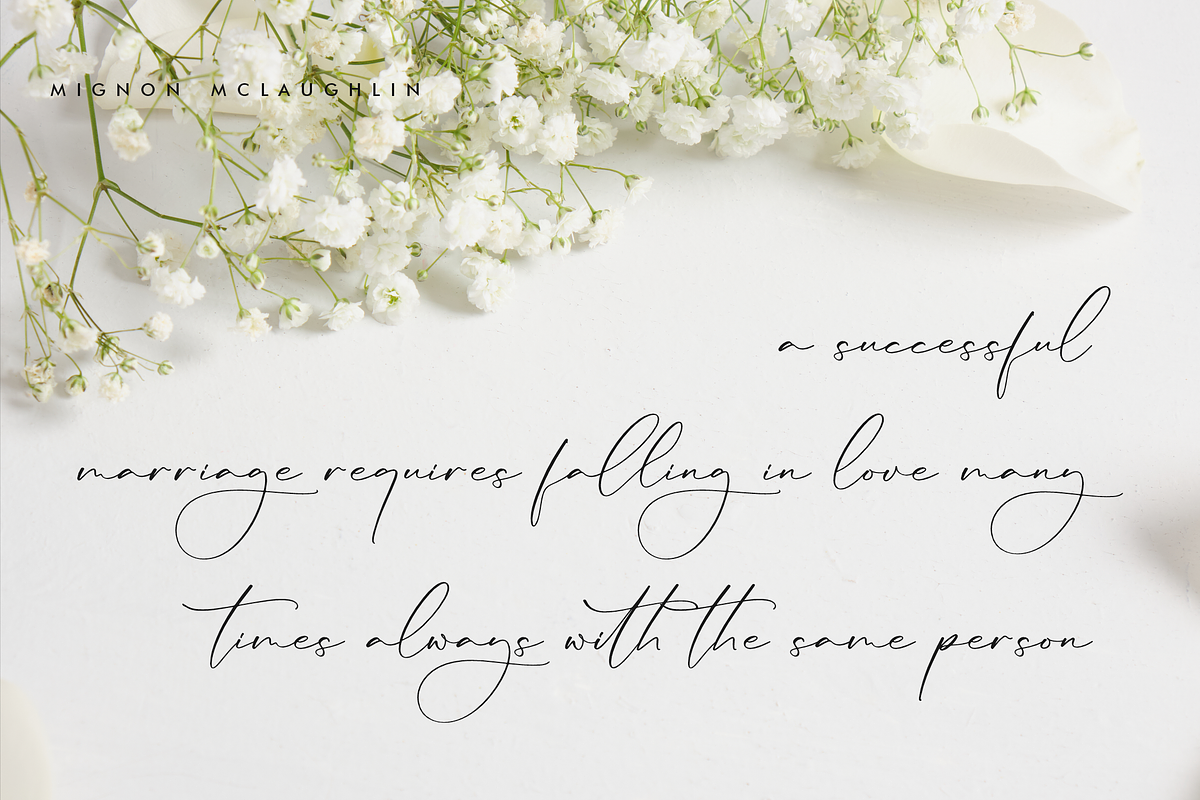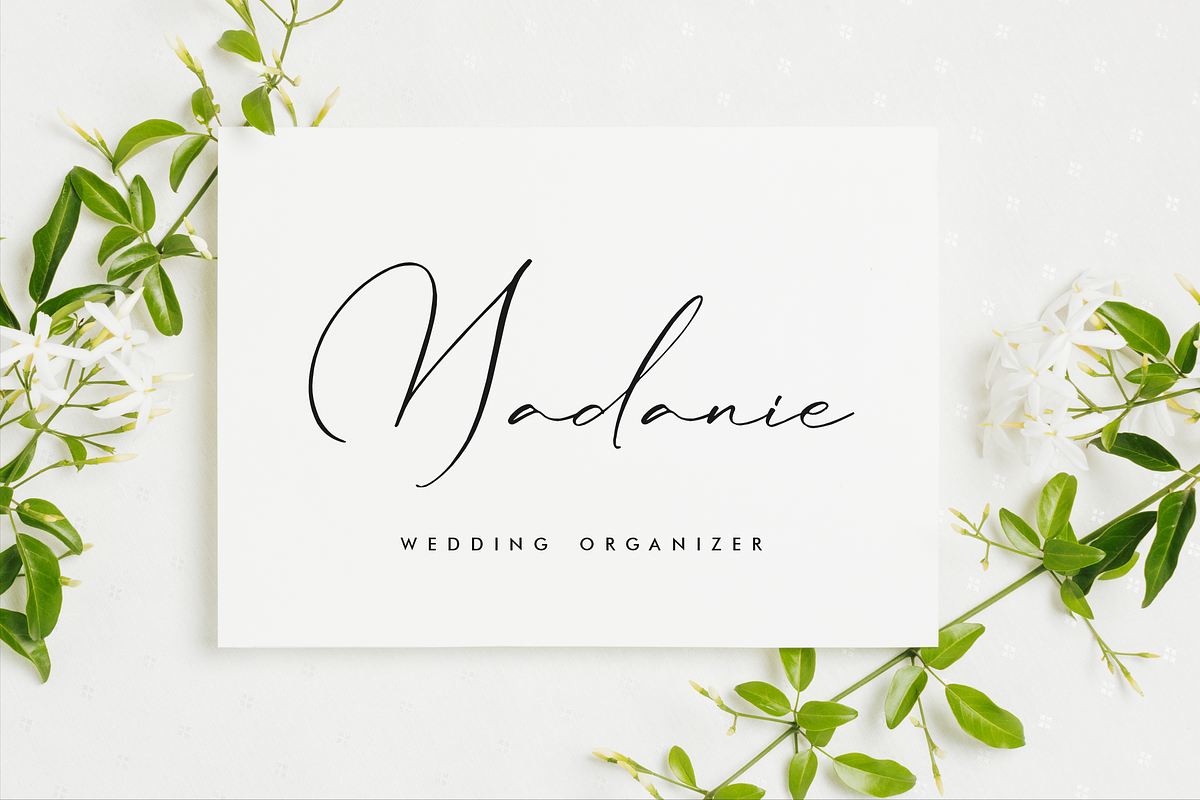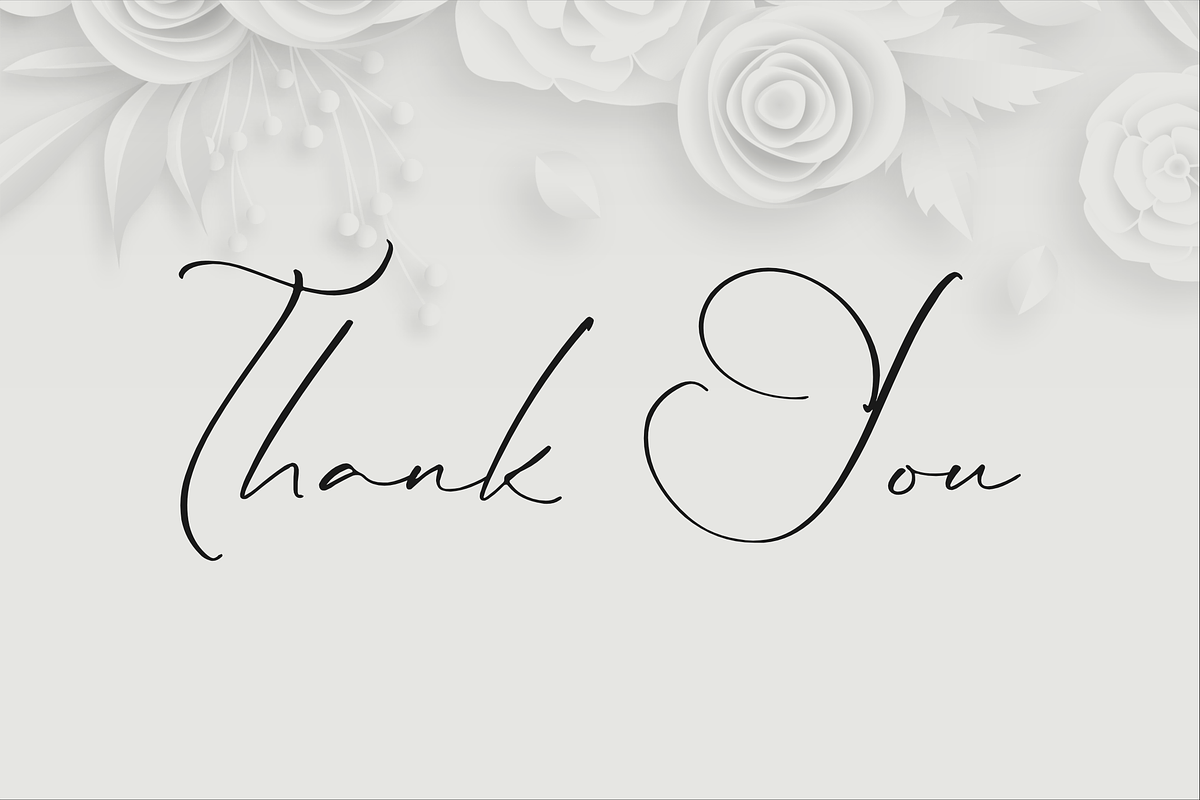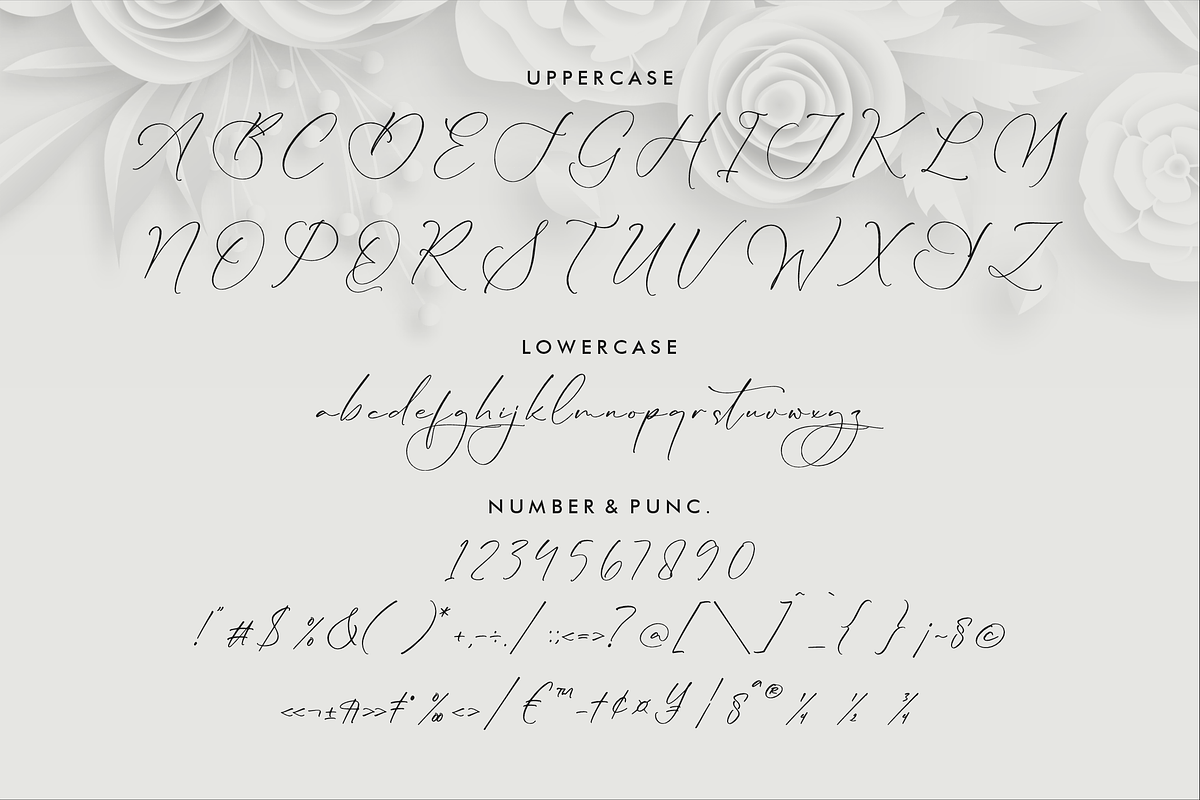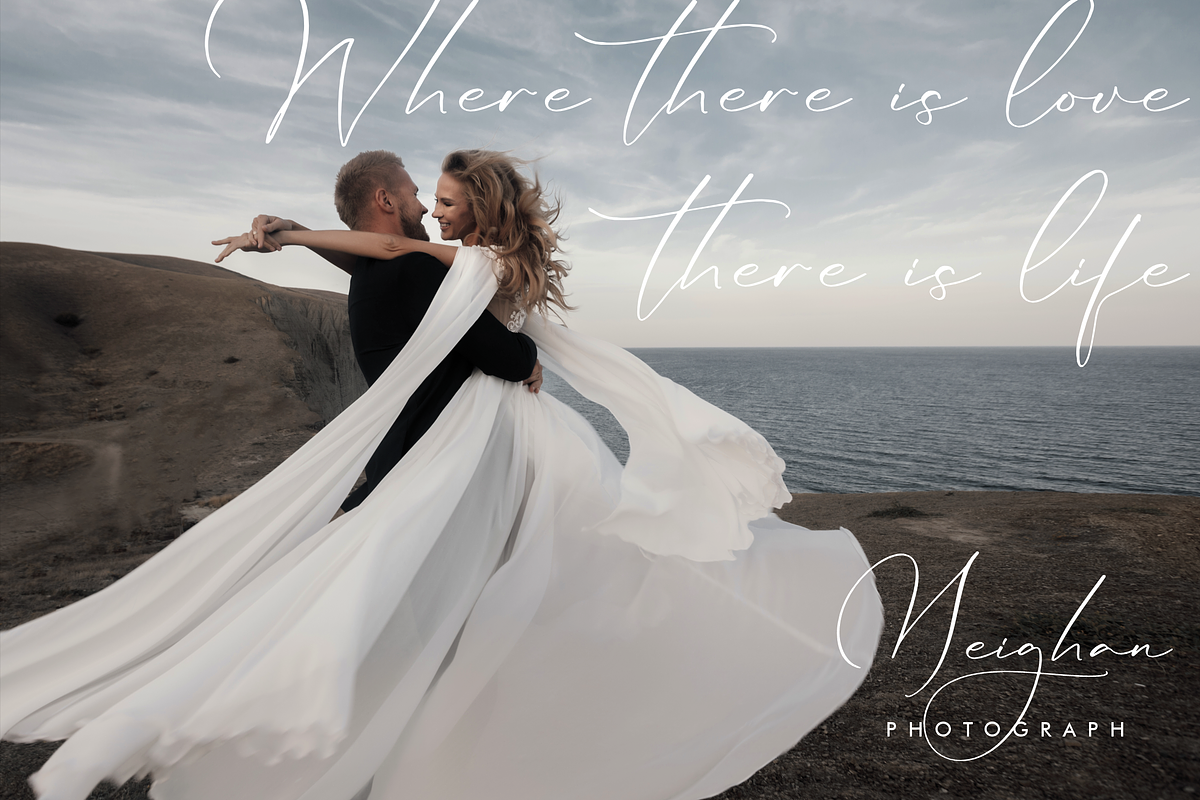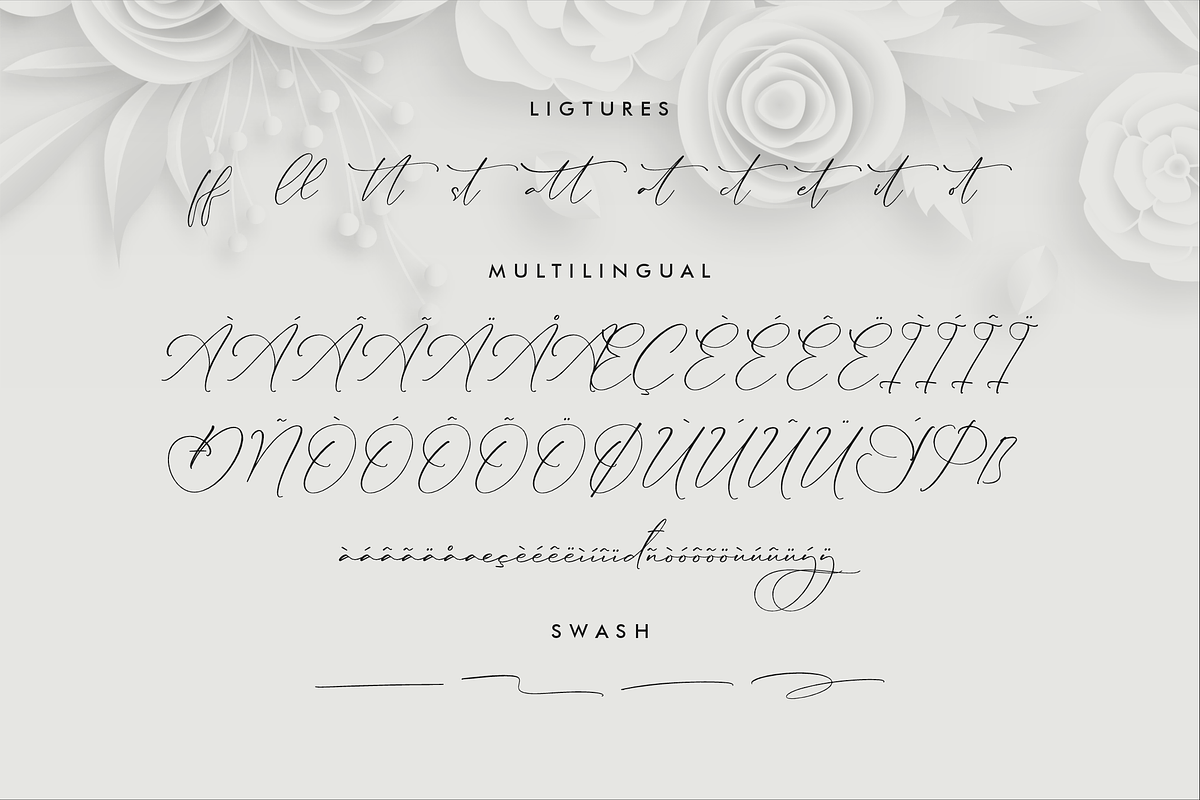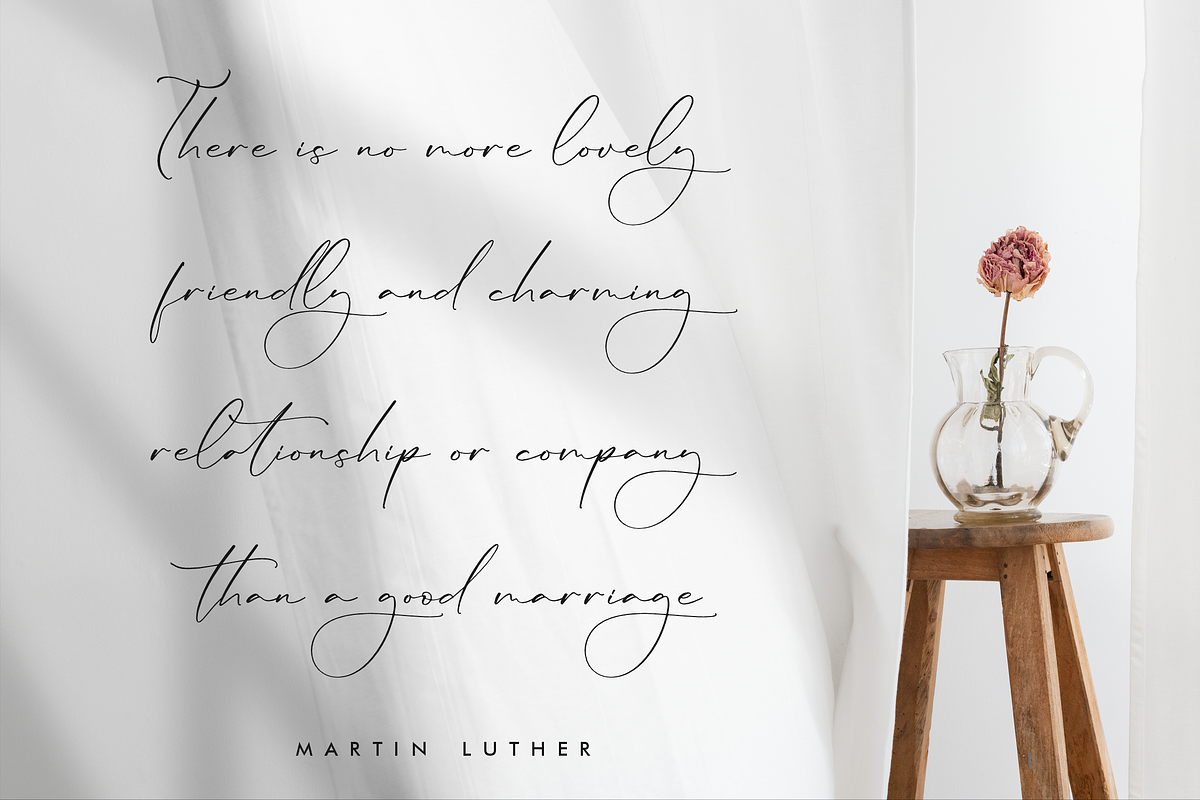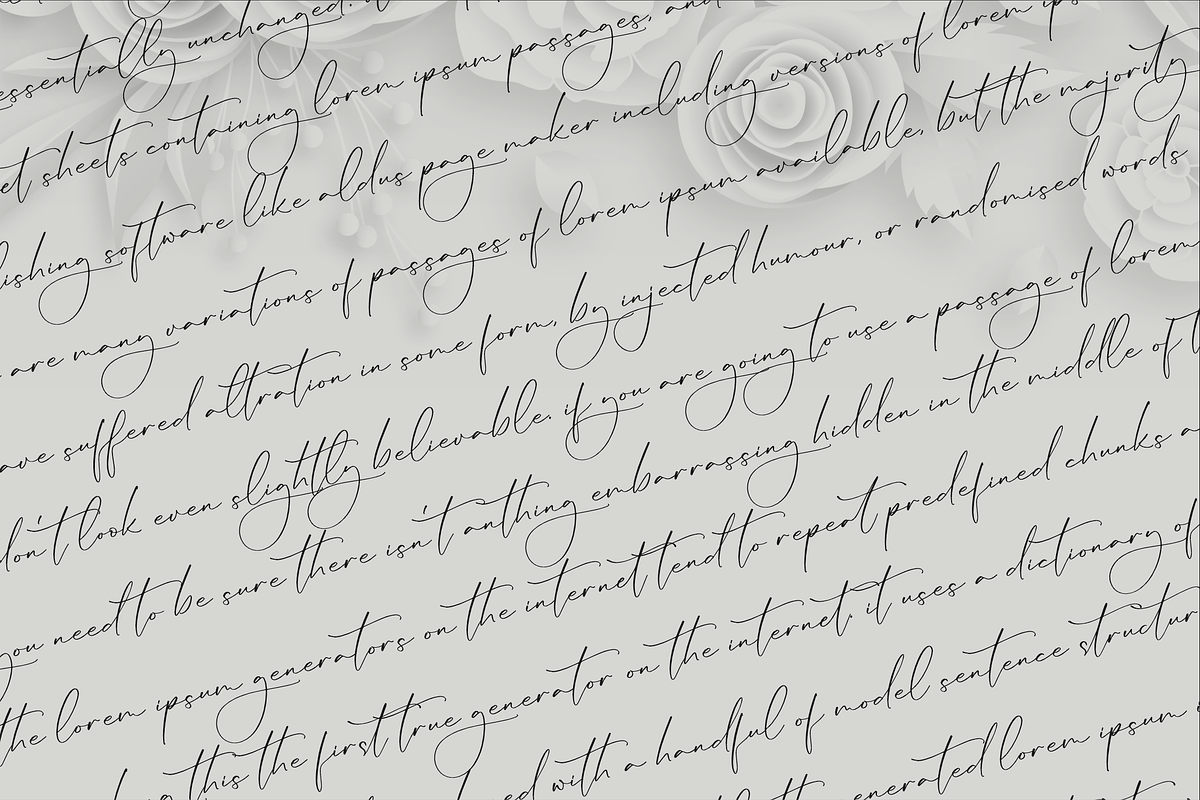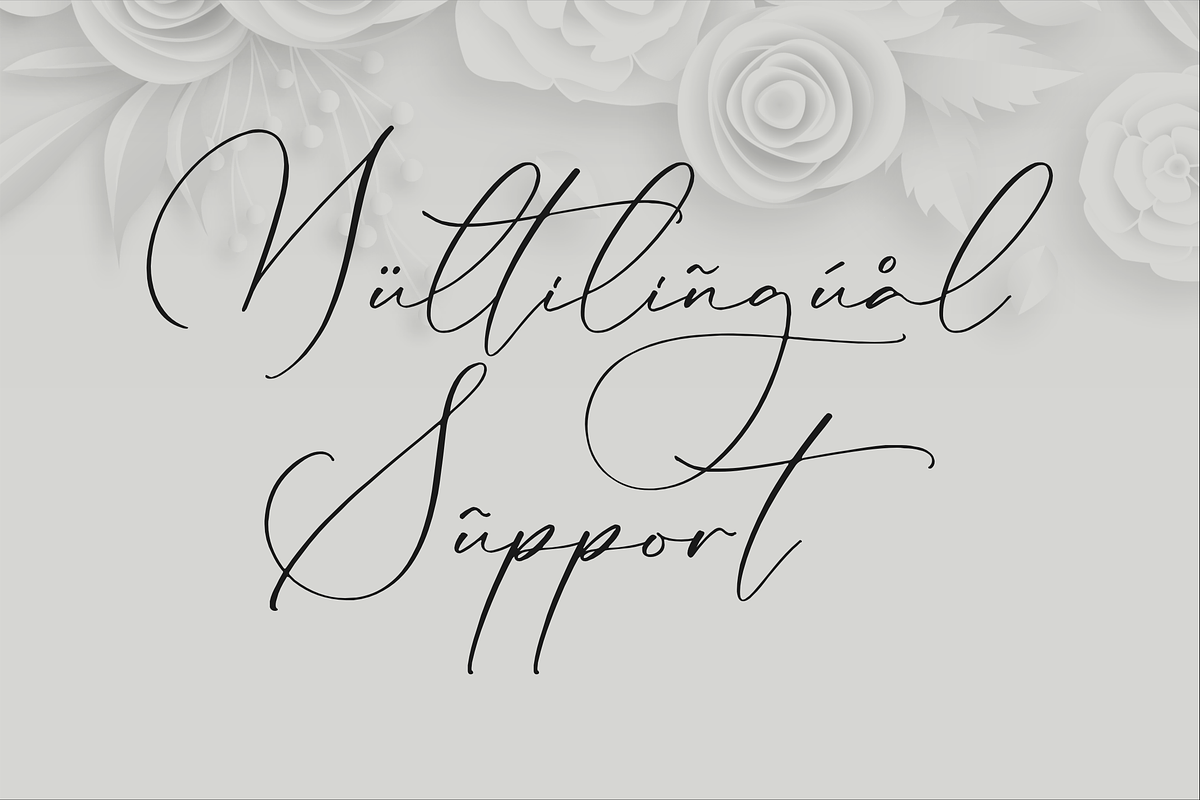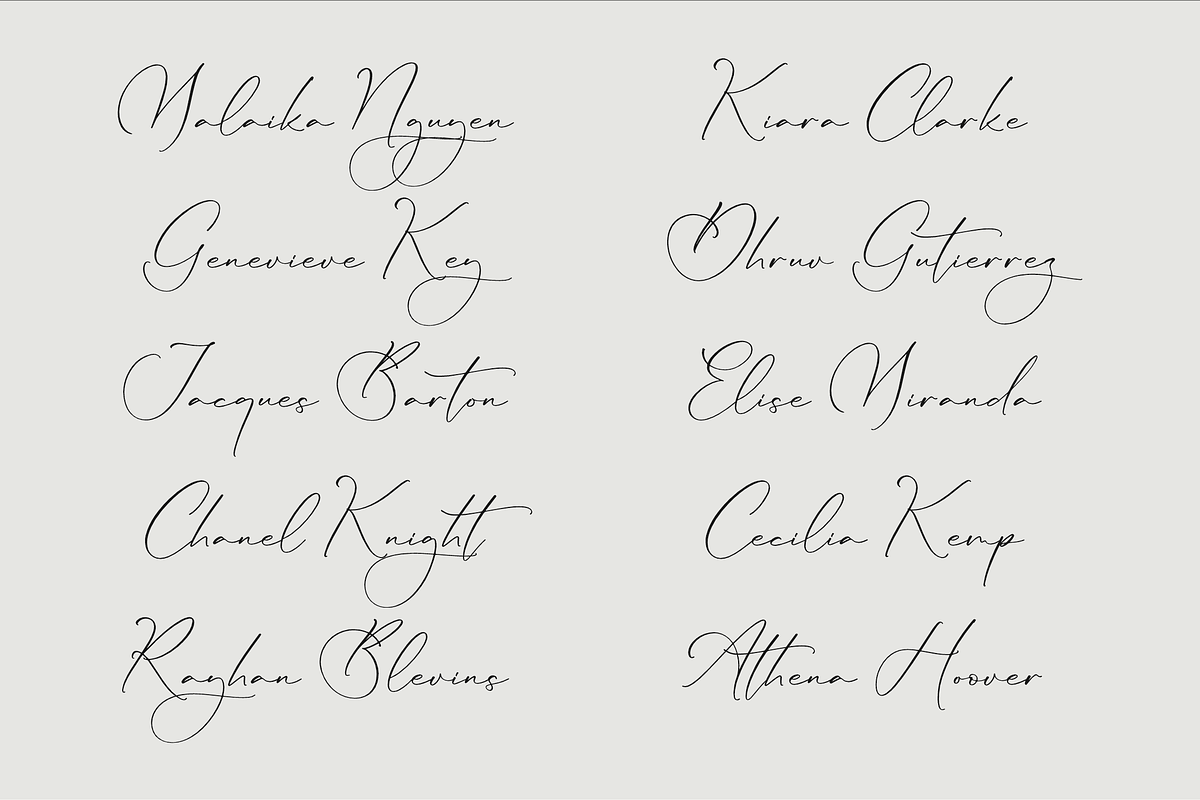
Lillywhite A Beautiful Script Font
Proudly present Lillywhite - Beautiful Script , created by Storytype, A luxury script that has own unique style & modern look. This typeface is perfect for an elegant & luxury logo, book or movie title design, fashion brand, magazine, clothes, lettering, quotes, and so much more.